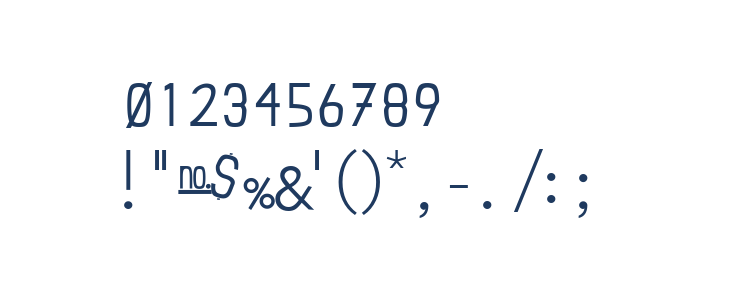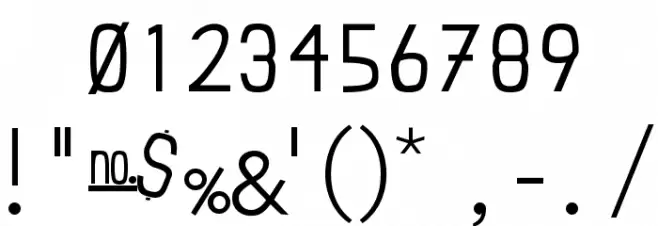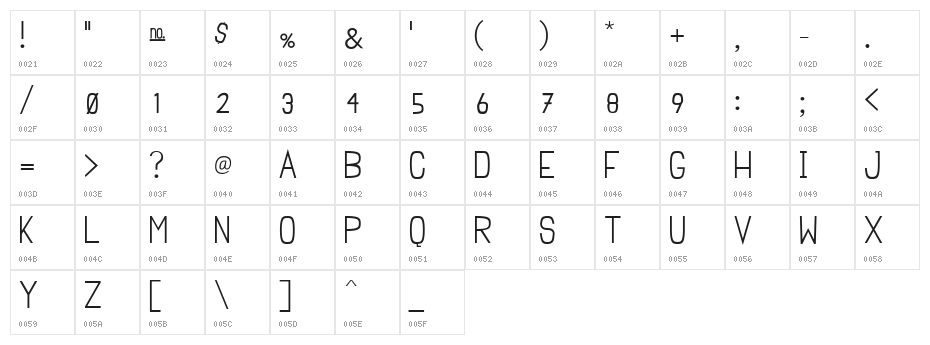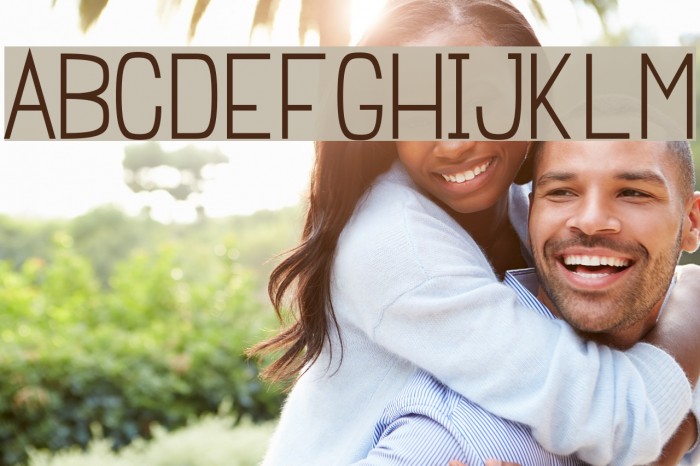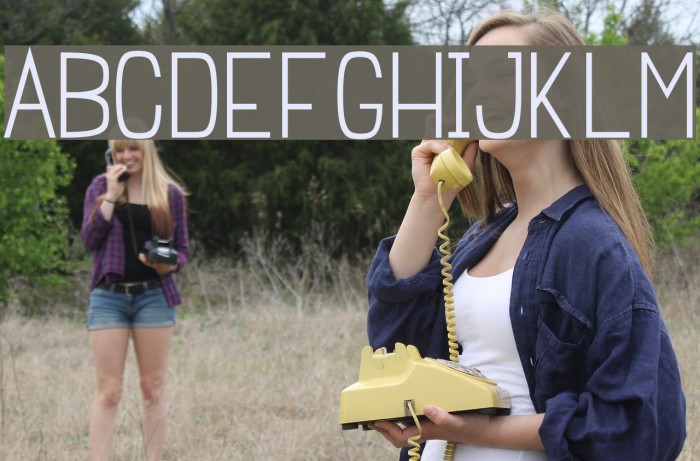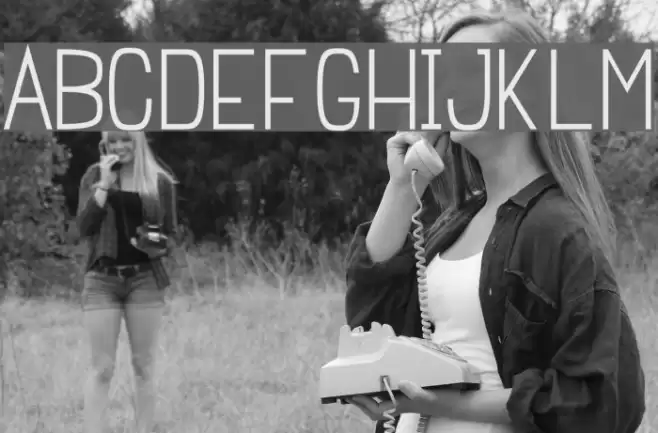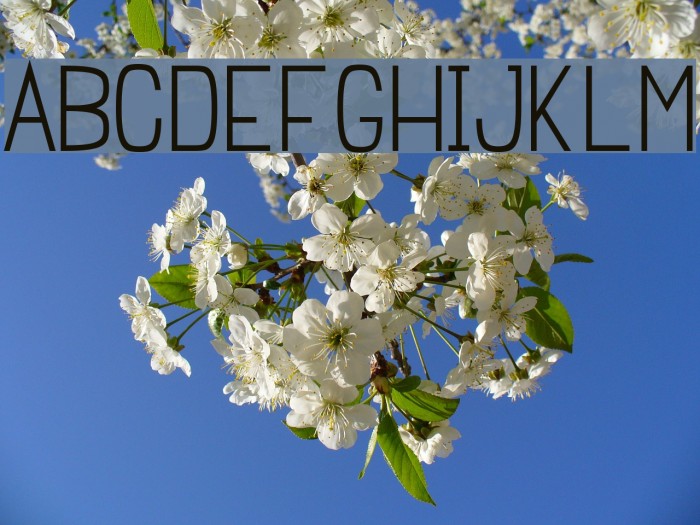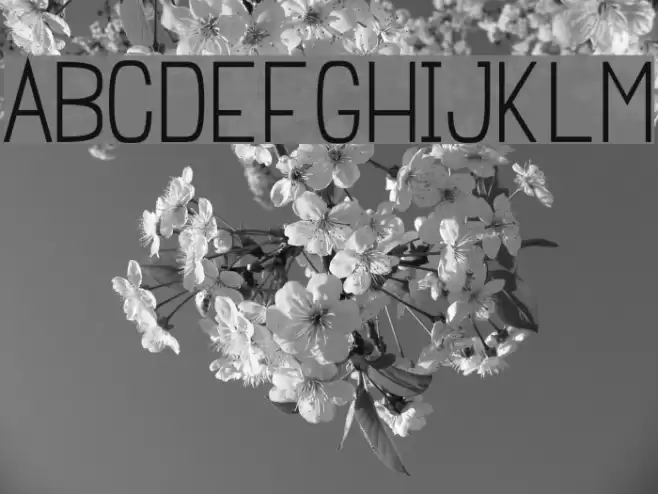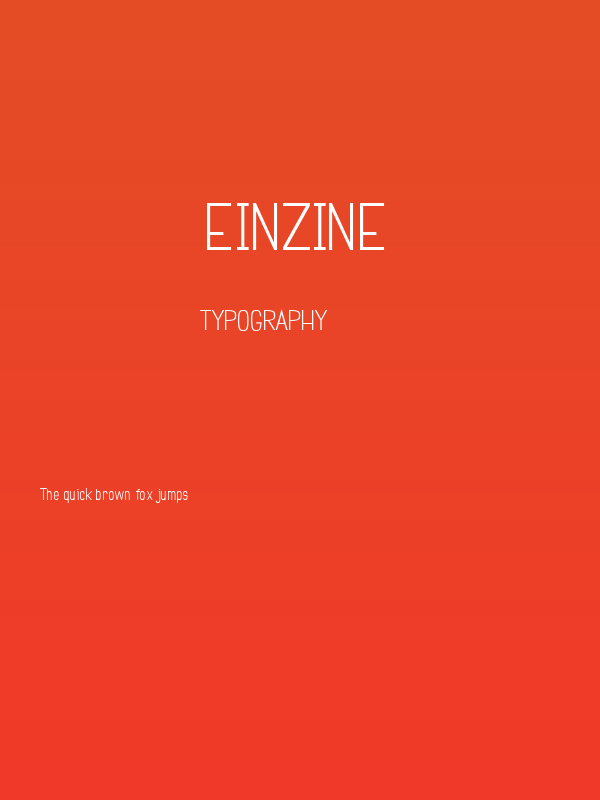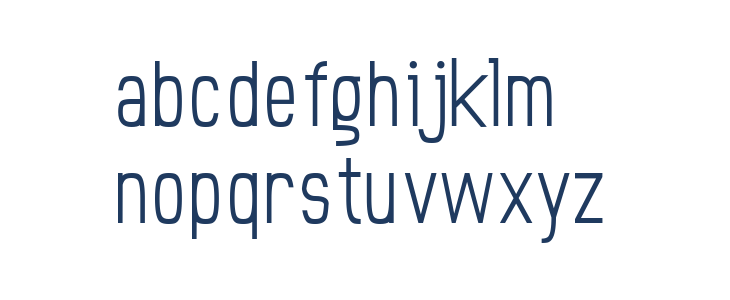
Einzine Font
Einzine Description
This font features a clean and modern sans-serif style with a geometric structure. The uppercase letters are tall and slightly condensed, giving a sleek and professional appearance. The lowercase letters maintain a consistent height, contributing to a harmonious and balanced look. The numerals are clear and easy to read, with a uniform width that complements the overall design. Special characters are well-integrated, maintaining the font's minimalist aesthetic. The font's simplicity and clarity make it versatile for various design applications.
Use CaseHeadlines, Body text, Logos
Proposed ProjectsIdeal for corporate branding, web design, editorial layouts, and minimalist posters.